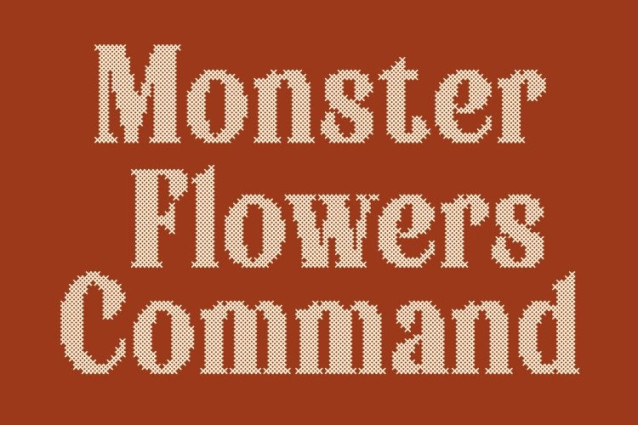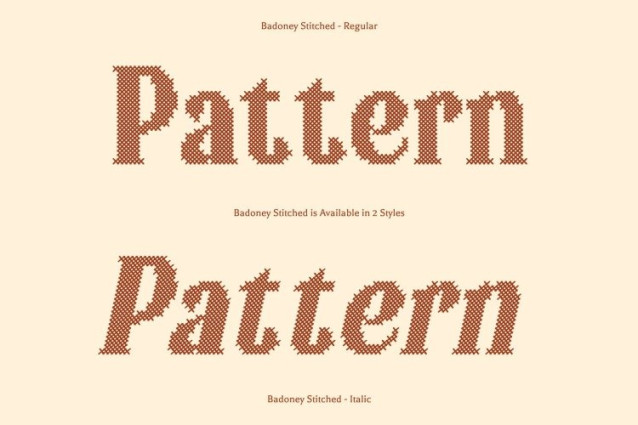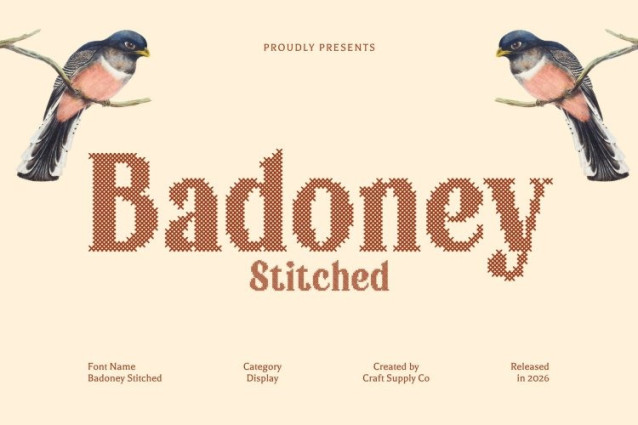
Badoney Stitched Font
Badoney Stitched Font – This is a refined serif font that embodies modern stylishness and elevated design. Created for impactful displays and captivating titles, it sets a new standard in expressive typography. Enhanced with a stitched style inspired by thread sewn or embroidered on fabric, this version introduces a handcrafted warmth that adds depth and personality to its elegant form.
Elegance in Every Curve
Each character of this font is meticulously crafted, balancing graceful curves and confident lines to redefine sophistication in serif typography. The stitched detailing features a cross-shaped pattern that creates a distinctive embossed and structured texture, giving the letters a tactile, fabric-like appearance with a classic, nostalgic, and relaxed impression.
Versatile and Visually Impactful
Whether featured on a magazine cover, branding project, website header, invitation, or fashion logo, this font delivers a stylish and memorable presence. Its combination of refined serif structure and textured stitch effect makes it suitable for both high-end designs and craft-inspired applications.
Crafting Unforgettable Impressions
This font doesn’t just form words it creates atmosphere. The blend of timeless serif elegance and warm stitched detailing elevates your message, leaving a lasting and distinctive impression. Perfect for creative branding, editorial layouts, packaging, DIY-themed designs, and expressive displays, this font transforms typography into a canvas of sophisticated yet personal artistry.